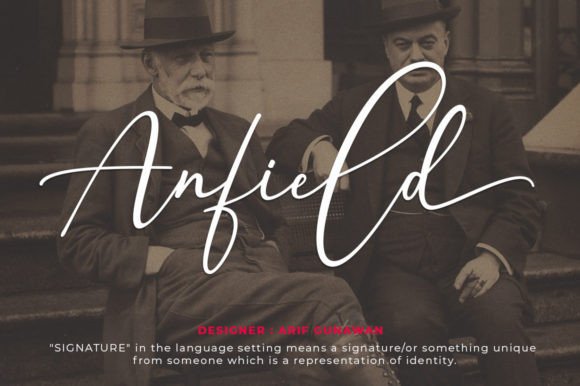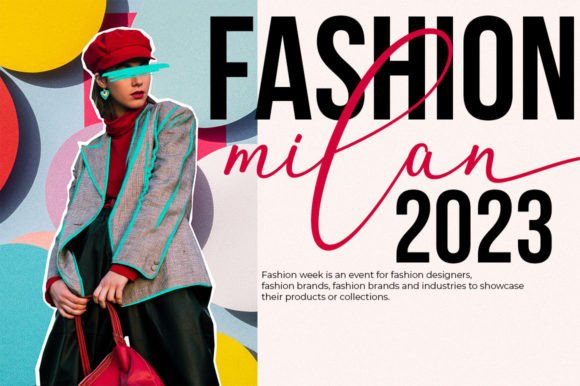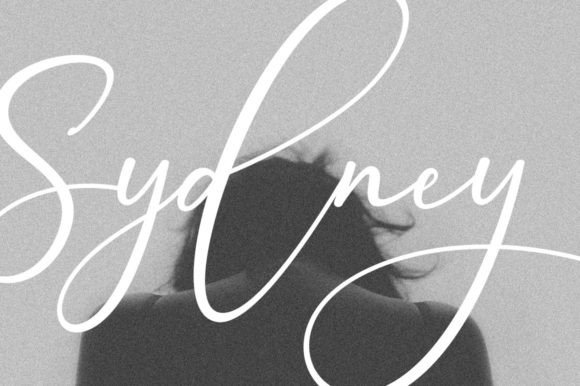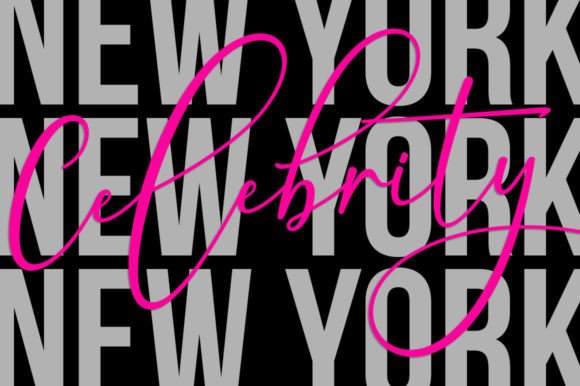
Anfield Font
About the Anfield Font
We are excited to introduce Anfield Font, a must-have typeface for any serious designer. Anfield Signature is a natural handwritten font, this font Is perfect for logos, invitations, stationery, wedding designs, social media posts, advertisements, product packaging, product designs, label, photography, watermark, special events, or anything.
Anfield Signature’s flowing, natural character makes it ideal for branding projects needing a touch of handcrafted authenticity, particularly logos, invitations, and short-form marketing materials. Its legibility is best suited for headlines and short text blocks; however, it’s not recommended for body text or lengthy paragraphs due to its script nature.
Pairing Anfield Signature with a clean sans-serif like Helvetica Neue for body copy or a geometric sans-serif like Futura for a modern contrast would create strong visual hierarchy. For a more traditional feel, consider pairing it with a classic serif font such as Garamond. These pairings balance the organic feel of Anfield with enhanced readability in supporting text.
The overall personality of Anfield Signature is friendly yet sophisticated, conveying a sense of approachability and elegance. This makes it suitable for brands targeting a discerning but approachable audience, such as boutiques, artisan food producers, or wedding-related businesses.